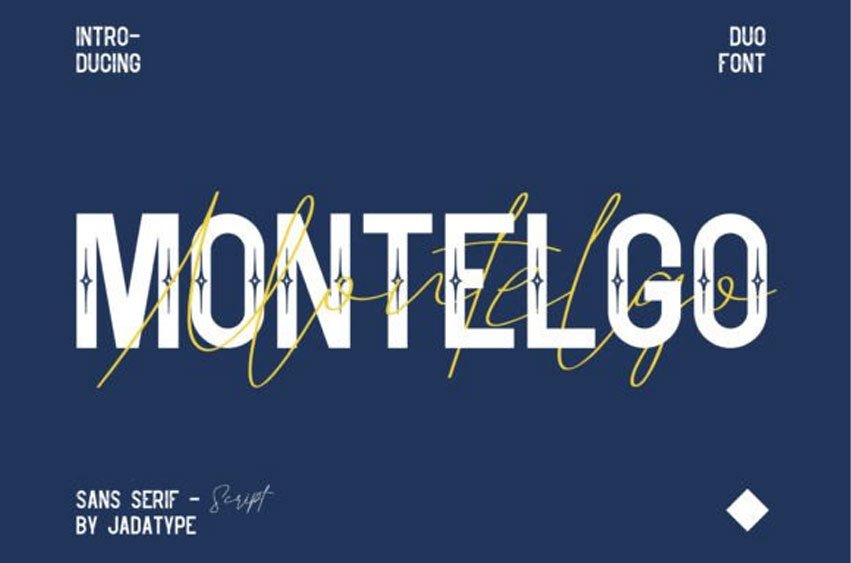
Montelgo Font is a modern font duo that combines a stylish script with a sleek sans serif. The script font is elegant and fluid, while the sans serif is cool and minimalist.
The combination creates a contemporary look that is perfect for branding, logos, and editorial layouts. Montelgo is a dynamic and versatile duo that adds a touch of sophistication to any design.